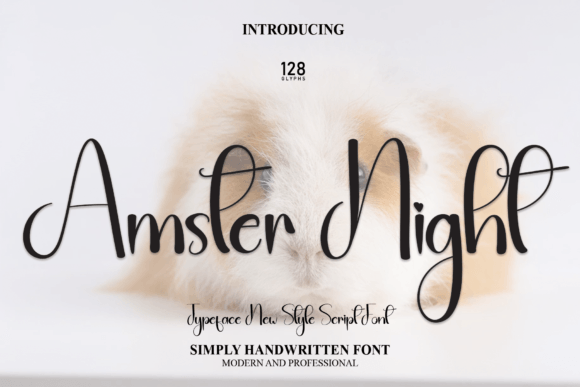
The Birth of a New Design Era: Amster Night Font
Have you ever been in a moment where you’re brainstorming ideas for a project and suddenly, the perfect font pops into your mind? It’s like a lightbulb moment, and you just can’t wait to bring it to life. For designers, this feeling is all too familiar, and it’s what drives us to create something truly unique and captivating.
Enter Amster Night Font, the latest addition to the world of typography. This stunning font is perfect for anything from wall displays to wedding invitations, social media post logos, and even product packaging. Its versatility makes it a valuable asset for designers who want to add a touch of elegance and sophistication to their projects.
Key Features of Amster Night Font
- Unique Characteristics: This font features a unique blend of modern and vintage styles, with intricate details and ornate designs, making it ideal for use in various creative projects.
- Font Style: Display font, suitable for headings, titles, and other prominent text elements
Amster Night Font Review
As a designer, I was excited to dive into the Amster Night font and see what it had to offer. Here are my thoughts.
- Unique and playful design: Amster Night has a distinctive look that’s perfect for adding a touch of whimsy to your designs.
- High-quality glyphs: The font includes a wide range of characters, from letters and numbers to punctuation and symbols.
- Not ideal for body text: While Amster Night is perfect for headings and titles, it may not be the best choice for large blocks of body text.
- Limited language support: Amster Night may not include all the characters you need for languages other than English.
- No bold or italic styles: While the font includes regular and condensed versions, it’s missing bold and italic styles.
Overall, I think Amster Night is a great choice for designers who want to add a touch of playfulness to their designs. While it may have some limitations, its unique design and high-quality glyphs make it a great addition to any font collection.
Amster Night Font Practical Application Guide
Amster Night Font is a versatile and modern font that can be used in various design applications. To use it, follow these steps:
Tips for Getting the Most Out of Amster Night Font
To get the most out of Amster Night Font, consider the following tips:
- Use it for headings and titles to create a modern and sleek look.
- Pair it with other fonts to create a unique and eye-catching design.
Amster Night Font is suitable for a variety of design projects, including:
- Business cards and stationery
- Web design and e-commerce sites
- Social media graphics and advertisements
Alternatives to Amster Night Font for Designers
The Great Vibes Font is a beautiful, handwritten script font that is perfect for adding a touch of elegance and sophistication to your designs. It is ideal for use in invitations, quotes, and other creative projects where a unique and eye-catching font is needed.
Great Vibes Font compares to Amster Night Font in that it also has a playful and artistic feel, but it is more refined and elegant. It is a better choice for designs that require a more polished and sophisticated look.
The Dancing Script Font is a fun and lively script font that is perfect for adding a touch of whimsy and playfulness to your designs. It is ideal for use in social media graphics, advertisements, and other creative projects where a bold and eye-catching font is needed.